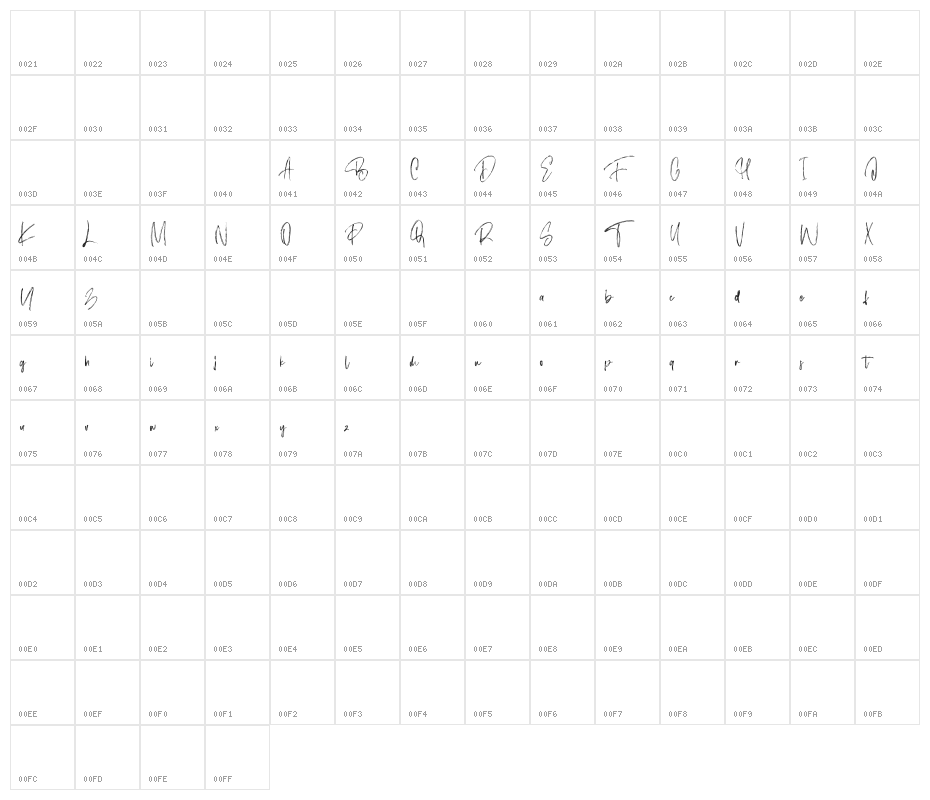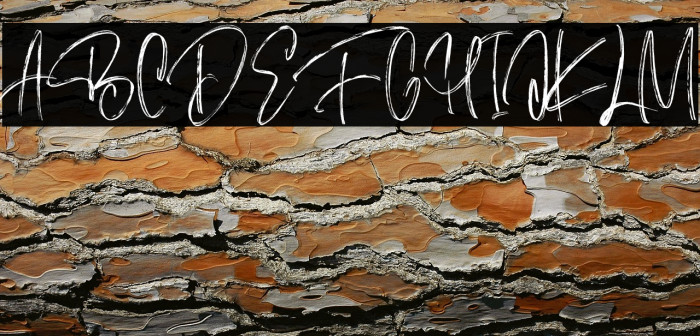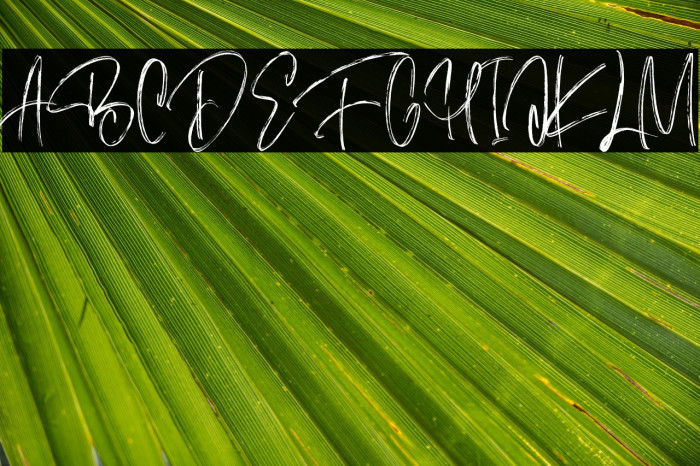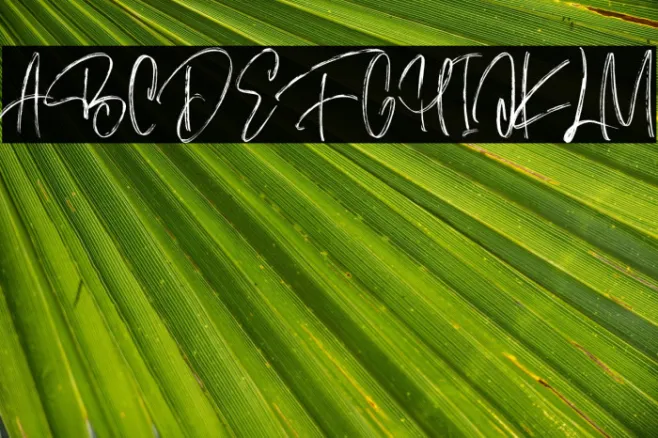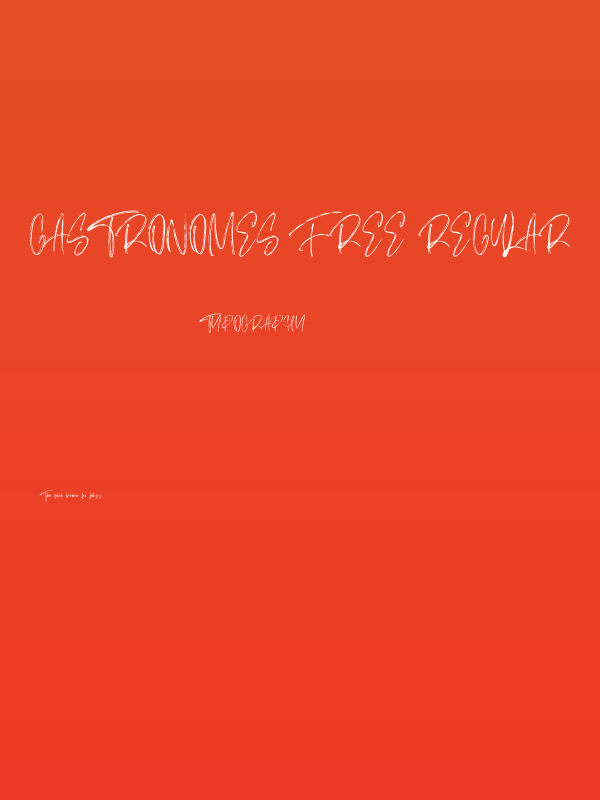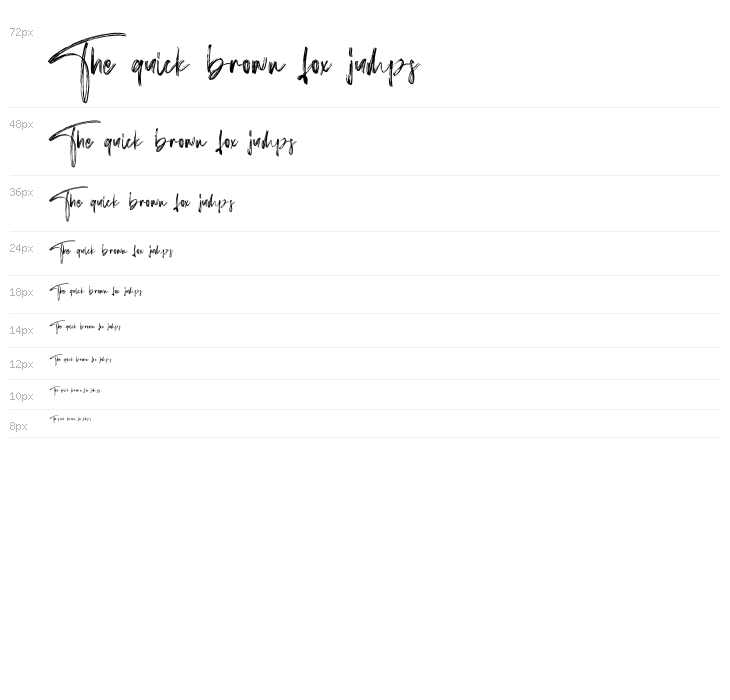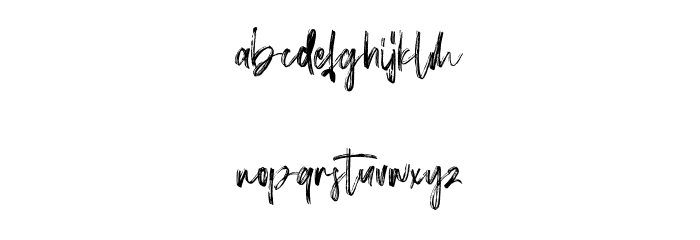
Gastronomes Free Regular Font
Gastronomes Free Regular Description
This font features a dynamic and expressive handwritten style, characterized by its fluid strokes and artistic flair. The letters exhibit a natural, brush-like texture, giving them a lively and energetic appearance. The uppercase letters are bold and prominent, while the lowercase letters maintain a consistent flow, enhancing the overall aesthetic. The font's unique style is perfect for projects that require a personal touch, as it conveys a sense of creativity and individuality. Its artistic nature makes it suitable for various design applications, from branding to artistic posters.
Use CaseLogos, Headlines, Artistic projects
Proposed ProjectsIdeal for branding, artistic posters, invitations, and creative projects requiring a personal touch.